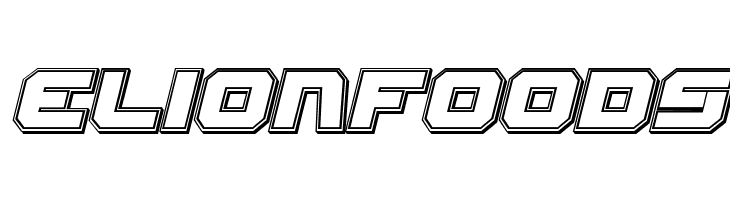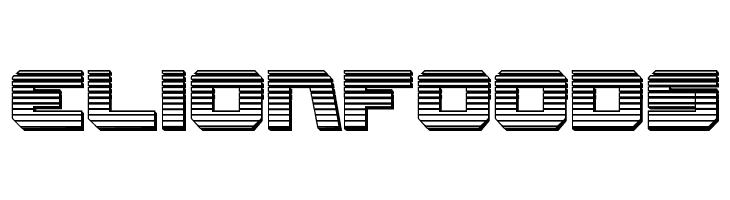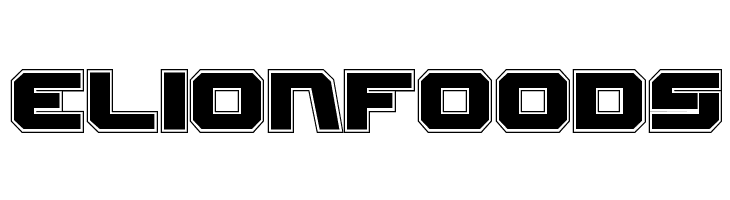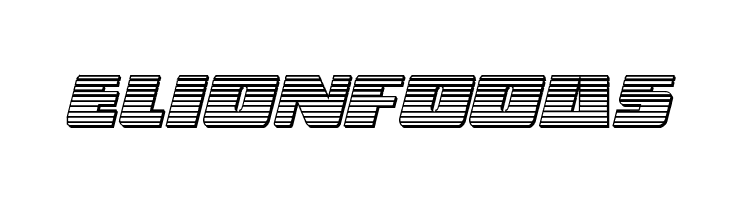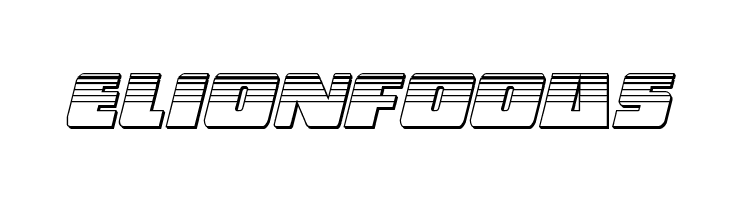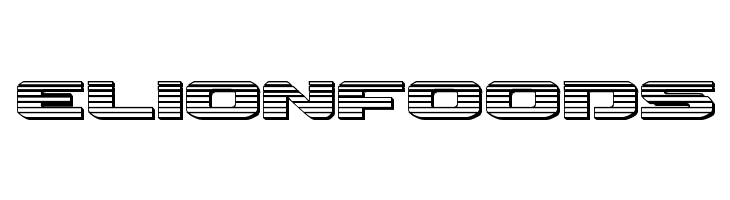
• Airstrike Platinum Regular
A bold, futuristic font with a dynamic, three-dimensional effect.
• Airstrike Academy Regular
A bold, dynamic font with a three-dimensional effect and sharp angles.
• Gearhead Engraved Italic
A bold, angular, engraved italic font with a modern, three-dimensional look.
• Gearhead Chrome
A bold, futuristic font with a three-dimensional, industrial design.
• Gearhead Academy Italic
A bold, italicized font with a futuristic, mechanical style and three-dimensional appearance.
• Gearhead Academy
A bold, geometric font with an industrial, three-dimensional style.
• Dark Alliance Chrome Italic
A bold, futuristic font with a chrome-like, three-dimensional appearance and italicized slant.
• Dark Alliance Platinum Italic
A bold, futuristic italic font with a three-dimensional effect and strong presence.
• Prowler 3D Regular
A bold, three-dimensional font with a modern, geometric style.
• Iapetus Chrome Regular
A futuristic, geometric font with a three-dimensional effect.